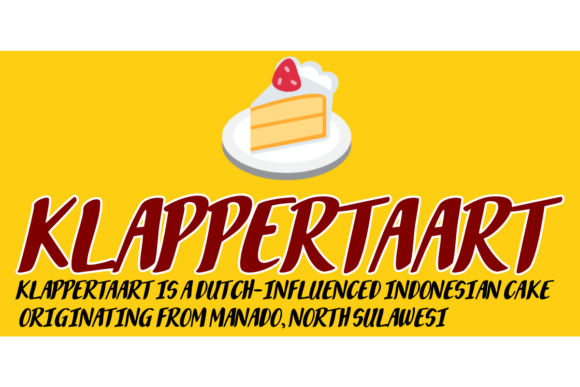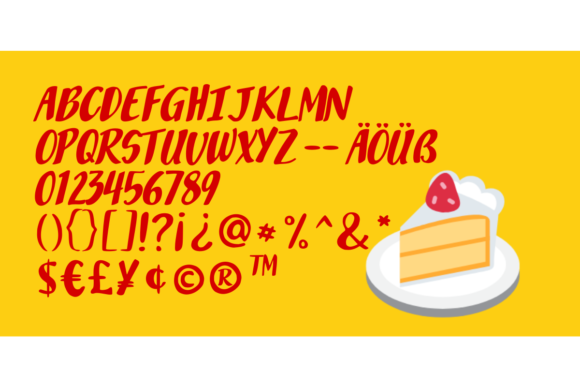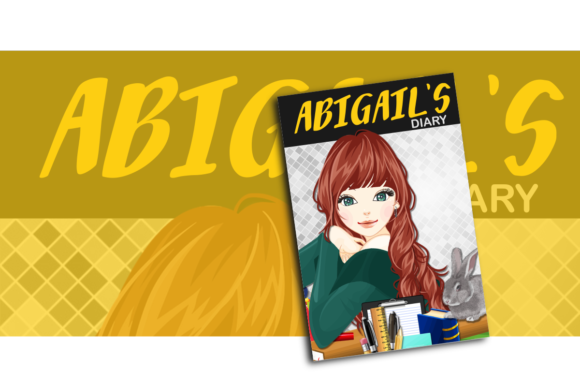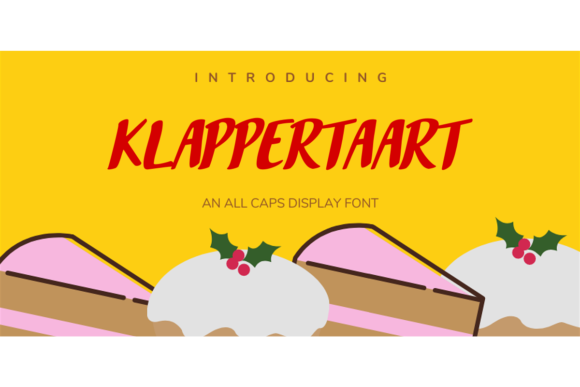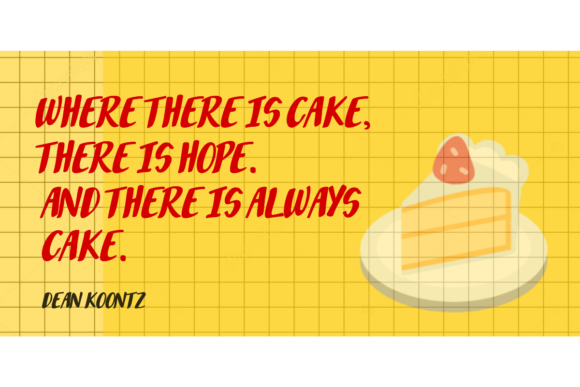
The Power of Imperfection in Design
Have you ever found yourself scribbling away in a notebook, trying to capture a moment or a feeling, only to discover that the imperfections in your handwriting are what make it truly special? This is the magic of the Klappertaart Font, a stunning display of imperfection that results from the unique pairing of a brush pen and pencil.
This gorgeous font is not just a pretty face – it’s a versatile tool for designers looking to add a touch of authenticity to their DIY projects. Whether you’re creating a handmade card, a custom invitation, or a one-of-a-kind piece of art, the Klappertaart Font is sure to bring your vision to life.
Klappertaart Font Key Features
- Font Family: Klappertaart Font is a unique, custom-designed font family.
- Unique Characteristics: Klappertaart Font features a distinctive, hand-drawn style with intricate details and flourishes, making it ideal for creative and artistic applications.
Klappertaart Font Review
Klappertaart Font is a unique and quirky typeface that has caught my attention. The designers have successfully captured the essence of a traditional Dutch pastry, and it shows in the font’s playful and whimsical design. ✨ The font’s irregular shapes and organic feel make it perfect for creative projects where you want to add a touch of personality.
One of the standout features of Klappertaart Font is its high level of customizability. You can adjust the font’s width, height, and even add custom letterforms to create a truly one-of-a-kind look. ✨ This makes it an excellent choice for designers who want to create unique and memorable designs.
- ⚠️ Limited language support: Klappertaart Font is primarily designed for English language use, and support for other languages may be limited or non-existent.
- ⚠️ Not suitable for formal use: The font’s playful and whimsical design makes it better suited for creative or informal projects, rather than formal documents or presentations.
Overall, I think Klappertaart Font is a great addition to any designer’s toolkit. While it may have some limitations, its unique design and customizability make it a great choice for creative projects. If you’re looking for a font that will add a touch of personality to your designs, Klappertaart Font is definitely worth considering.
Klappertaart Font is ideal for:
- Creative and artistic projects.
- Typography-based designs.